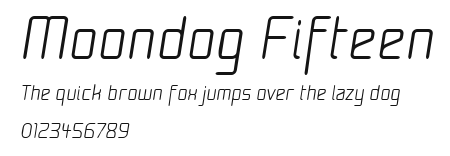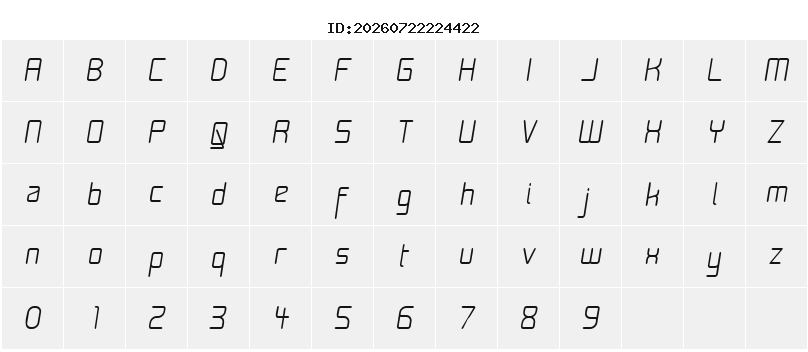
Moondog Fifteen Preview
• Font Name: Moondog Fifteen
• Full Font Name: Moondog Fifteen Italic
• PostScript Name: MoondogFifteen-Italic
About Moondog Fifteen.ttf
Moondog Fifteen.ttf is a modern, elegant sans-serif font designed for ultimate readability and visual harmony. Perfect for branding, headlines, web design, and print materials.